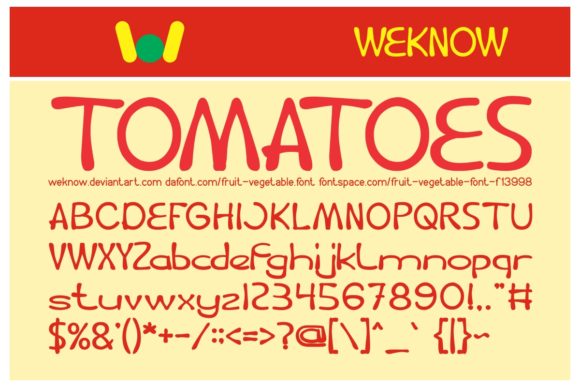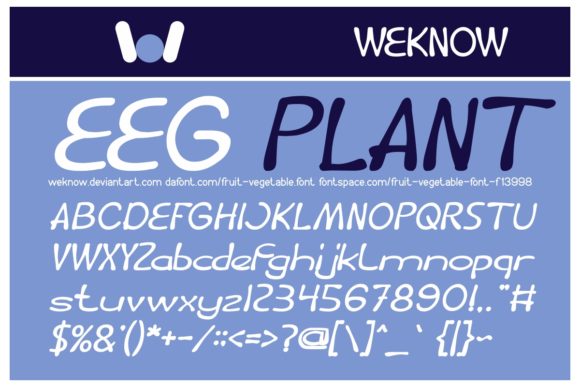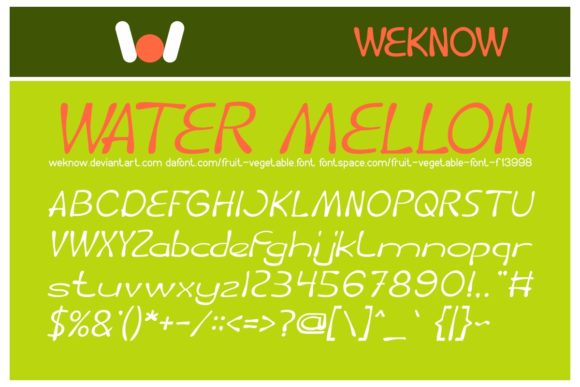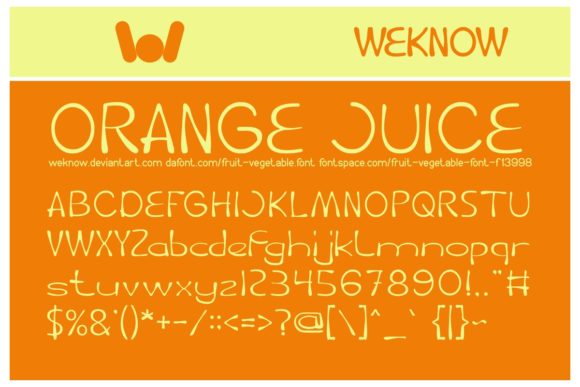
Fruit and Vegetable Font: The Perfect Addition to Your Creative Projects
I’ll never forget the time I was working on a project for a client who requested a custom font that would make their brand stand out. I scoured the internet, tried out countless fonts, but none seemed quite right. That was until I stumbled upon the Fruit and Vegetable font. It was love at first sight! ✨ This simple and neat lettered display font has been a game-changer for my designs, and I’m excited to share its awesomeness with you.
- ✨ Simple and neat design that’s perfect for display text
- ✅ Highly legible, even at smaller sizes
- 🎉 Extensive character set, including glyphs and stylistic alternates
- 👍 Works beautifully for both digital and print projects
While the Fruit and Vegetable font is amazing, there are a few things to keep in mind: 🤔
- ⚠️ Limited suitability for body text, as it’s primarily designed for display purposes
- ⚠️ Some characters may not work well in all contexts, requiring manual adjustments
One of the standout features of the Fruit and Vegetable font is its support for OpenType features and glyphs. These allow you to add an extra layer of creativity to your designs:
- Access stylistic alternates to give your text a unique twist
- Use glyphs to add decorative elements or icons to your text
The Fruit and Vegetable font was designed with the intention of bringing a touch of whimsy and playfulness to creative projects. Its creator drew inspiration from the colorful world of fruits and vegetables, aiming to craft a font that would be both fun and functional.
Q: What type of projects is the Fruit and Vegetable font best suited for?
A: The Fruit and Vegetable font is perfect for creative projects that require a playful, eye-catching display font, such as branding, advertising, and packaging.
Q: Is the Fruit and Vegetable font suitable for body text?
A: While the Fruit and Vegetable font is highly legible, it’s primarily designed for display purposes. For body text, consider using a font with more traditional typographic characteristics.